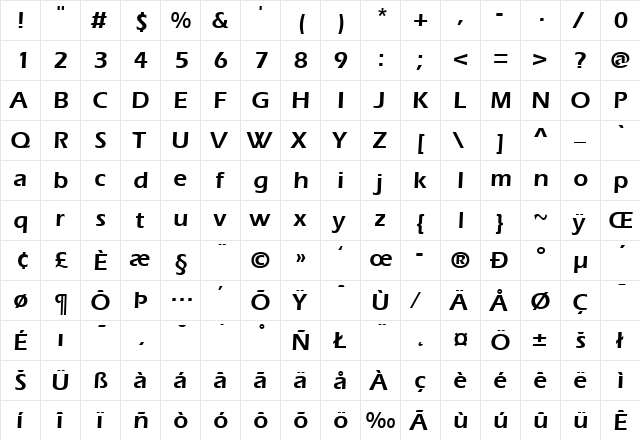
ItcEras-Demi Regular
Design Context for ItcEras-Demi Typeface
ItcEras-Demi is a composed and adaptable typeface that performs quietly and consistently across a wide range of design contexts.